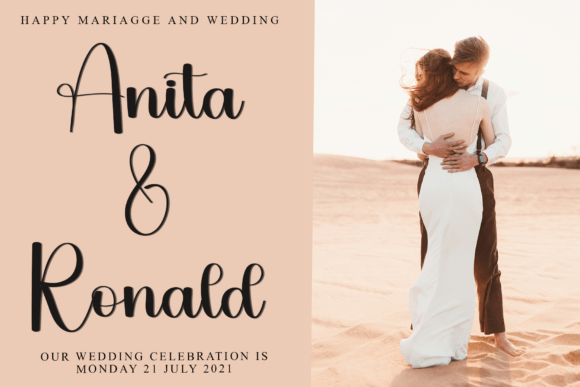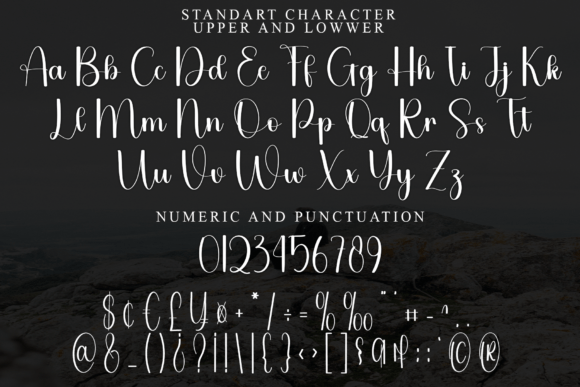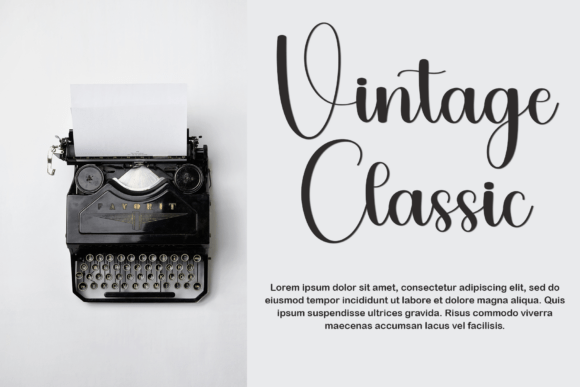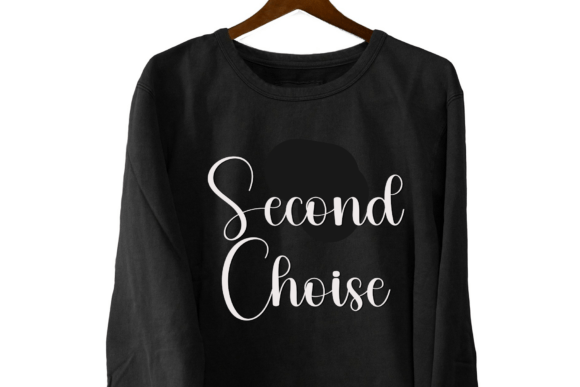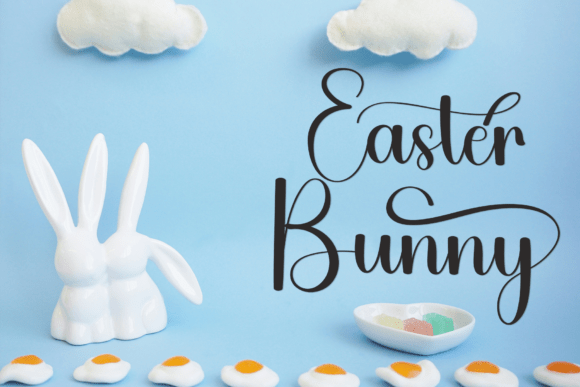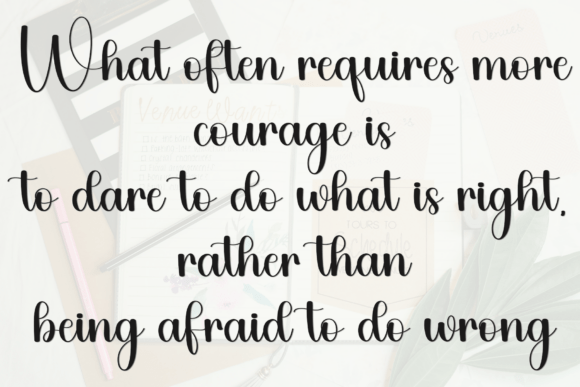
The Magic of Disney Vacation Font: Bringing Warmth to Your Designs
Remember the excitement of planning your first Disney vacation? The anticipation, the excitement, and the joy of creating unforgettable memories with loved ones. As a designer, you might be thinking, ‘How can I capture that same magic in my work?’ The answer lies in the perfect font – one that exudes warmth, friendliness, and a playful touch. That’s where the Disney Vacation Font comes in – a casual and creative font that’s sure to transport your audience to a world of wonder and enchantment.
With its round, playful strokes and charming, hand-drawn aesthetic, the Disney Vacation Font is a valuable addition to any designer’s toolkit. Whether you’re creating invitations, social media graphics, or personal projects, this font is sure to add a fun and unique touch. Its compatibility with various application engines makes it easy to use in Adobe Photoshop, Corel, Adobe Illustrator, Canva, and many more.
Disney Vacation Font Key Features
- Unique Characteristics: The Disney Vacation Font features a playful, cursive script with intricate flourishes, evoking the whimsy and magic of Disney’s iconic branding.
Disney Vacation Font Review
Overall, I think the Disney Vacation Font is a fun and playful choice for any project related to the Disney brand. ✨ It’s easy to see why it’s a popular choice among designers and marketers.
- Fun and whimsical feel: The font is reminiscent of classic Disney animation, which is perfect for capturing the magic of the brand.
- Wide range of applications: From print materials to digital designs, this font can be used in a variety of contexts to add a touch of Disney charm.
- Good legibility: Despite its playful feel, the font is still easy to read, making it suitable for a range of uses, from headings to body text.
- ⚠️ Limited language support: The font is only available in English, which may limit its use for international projects.
- ⚠️ Not suitable for formal contexts: While the font is perfect for playful and creative projects, it may not be the best choice for more formal or professional contexts.
Overall, I think the Disney Vacation Font is a great choice for designers and marketers looking to add a touch of Disney magic to their projects. Just be aware of its limitations, and use it accordingly.
The Disney Vacation Font is ideal for creating whimsical and playful designs, such as:
- Children’s birthday party decorations and invitations
- Travel brochures and itiner